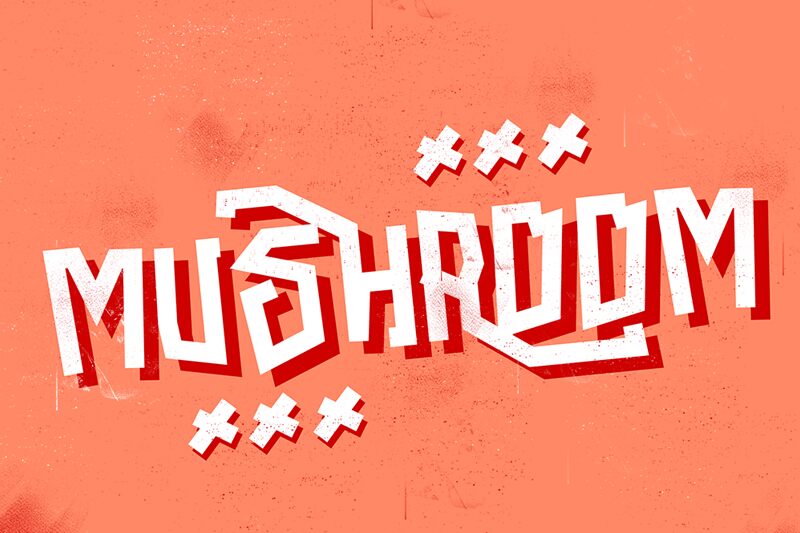
Mushroom-Medium
Mushroom Medium, designed by Leonard Posavec of LeoSupply.co, captivates with its bold, cartoon-inspired aesthetics. This display font exudes a whimsical, yet assertive charm, drawing the eye with its distinct, angular forms and playful personality. The robust, solid letterforms convey a sense of strength and confidence, while the organic, hand-crafted-like quality adds a touch of warmth and character.
Mushroom Medium's versatility makes it an excellent choice for a wide range of design applications. Its striking visual impact lends itself beautifully to logos, name tags, and product packaging, infusing these elements with an engaging, memorable presence. Similarly, the font's personality shines through in handwritten quotes, social media graphics, and clothing designs, creating a visually captivating and playful experience for the audience.